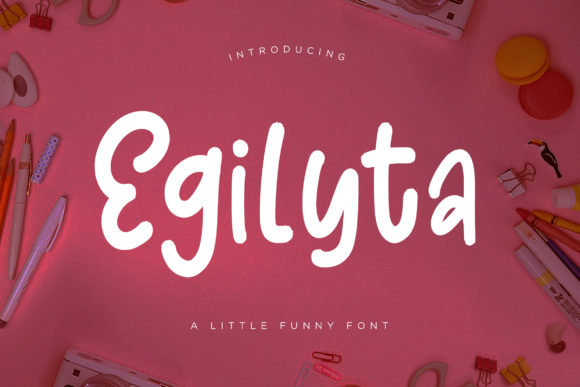
Egilyta Font
Journey into the realm of boundless creativity with Egilyta Font, a display font family that radiates bold personality and cheerful vibes. Its playful and fun-loving demeanor will bring life and laughter to your designs, adding a touch of whimsy and lightheartedness to any project it graces.
Egilyta Font is the brainchild of CreatypeStudio, a renowned collective of font architects who specialize in crafting typographic masterpieces that ignite imagination and leave a lasting impression. Each glyph in this font family is meticulously designed to exude charm and playfulness, with a hint of cheekiness that is sure to capture hearts and spark smiles.
Let Egilyta Font be your artistic paintbrush, transforming dull designs into vibrant expressions of joy and wonder. Unleash your creativity and let the font's energetic strokes lead you to design masterpieces that resonate with your audience.
With Egilyta Font, you'll embark on a typographic adventure where every letter dances with delight, creating a symphony of visual harmony. Its bold and confident presence will command attention, making your designs stand out from the crowd.
Don't settle for ordinary fonts that blend into the background. Embrace the vivacious spirit of Egilyta Font and inject your designs with an infectious energy that radiates happiness and good cheer. Let your imagination soar and create designs that reflect your unique personality, leaving an unforgettable mark on your audience.
Egilyta Font is more than just a font; it's a gateway to a world where playful typography meets boundless creativity. Its enchanting allure will captivate your audience, leaving them mesmerized by the sheer magic of your designs.
So, dive into the whimsical world of Egilyta Font, where every character tells a tale of joy and laughter. Let your designs blossom with newfound vitality and let the font's charm work its magic, leaving a trail of smiles and happy hearts in its wake.